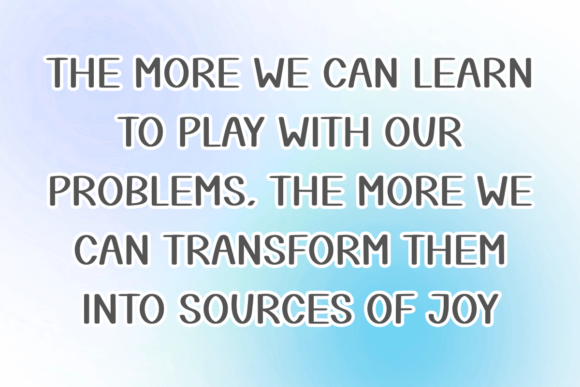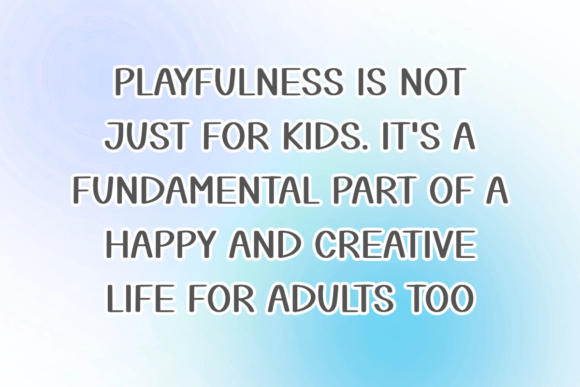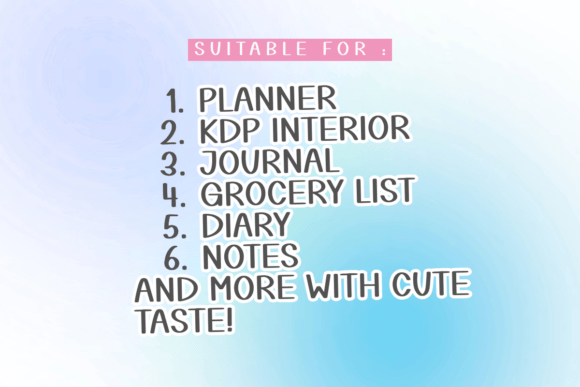
The Perfect Font for a Brighter Sunday
You’ve spent hours pouring over design inspiration boards, finally landing on the perfect concept for your new project. But as you start to build, one thing holds you back: the font. It’s the unsung hero of your design, setting the tone for the entire project. For many designers, finding that perfect font can be a daunting task – until now.
Enter the Bright Sunday Font, a casual sans-serif font designed to bring a touch of modern charm to your projects. With its clean lines, soft curves, and well-balanced letterforms, it’s the perfect solution for branding, headlines, packaging, and social media graphics. Whether you’re working on a new logo or updating your brand’s aesthetic, the Bright Sunday Font is a valuable tool in your design toolkit, delivering both clarity and warmth to your work.
Bright Sunday Font Key Features
- Unique Characteristics: Bright Sunday Font boasts a unique blend of modern and vintage elements, featuring intricate details and subtle textures that add an extra layer of depth to any design.
- Character Set: The font includes a comprehensive character set, supporting multiple languages and providing a wide range of glyphs, including punctuation, symbols, and diacritical marks.
Bright Sunday Font Review
Overall, I’m impressed with the Bright Sunday Font. It has a certain charm that can work well for various design projects. ✨ The font’s clean lines and modern aesthetic make it perfect for digital products, websites, and even print materials.
Here are some of the things I like about this font:
- It’s highly legible, even at smaller font sizes.
- The font’s modern feel makes it suitable for various industries, from tech to fashion.
- The font’s flexibility allows for easy customization and pairing with other fonts.
- ⚠️ The font might feel too plain or generic for some designers who prefer more unique or bold typography.
- ⚠️ The font’s sans-serif style might not be the best choice for projects that require a more traditional or elegant look.
Overall, I think the Bright Sunday Font is a solid choice for designers who want a clean, modern font that can work well in various contexts. While it may not be the most exciting or unique font, it’s reliable and easy to use.
Bright Sunday Font is ideal for:
- Logo design and branding
- Typography for packaging and labels
- Creating eye-catching headings and titles
- Engaging presentations and reports
Alternatives to Bright Sunday Font
Great Vibes is a modern script font designed by Javier Lopez. It’s perfect for creating a friendly and approachable atmosphere in designs. Great Vibes is ideal for use in branding, advertising, and packaging materials. It has a more fluid and elegant feel compared to Bright Sunday Font, making it suitable for luxury brands or high-end products.
Alex Brush is a beautiful script font created by Lauren Wiley. It’s great for adding a touch of elegance and sophistication to designs. Alex Brush is suitable for use in invitations, wedding stationery, and luxury packaging materials. Compared to Bright Sunday Font, Alex Brush has a more refined and delicate feel, making it perfect for formal events or high-end branding.